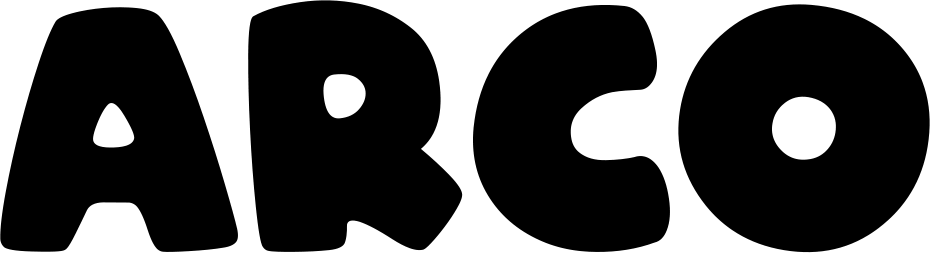
Arco Font
Nothing brings a more curious and playful feel to your text than a rounded cartoon font such as Arco. It supports a few sets of alternatives all of which are available in uppercase. So if you wish your final design to be perceived as friendly but firm, consider it done.
Especially with the super bold characters Arco includes, your videos, posters, and children’s books, or else will be twice as eye-grabbing with such a strong beautiful title. Isn’t that right?
ARCO is a funny typography, with rounded edges, with more than 80 characters, its alphabets in uppercase.